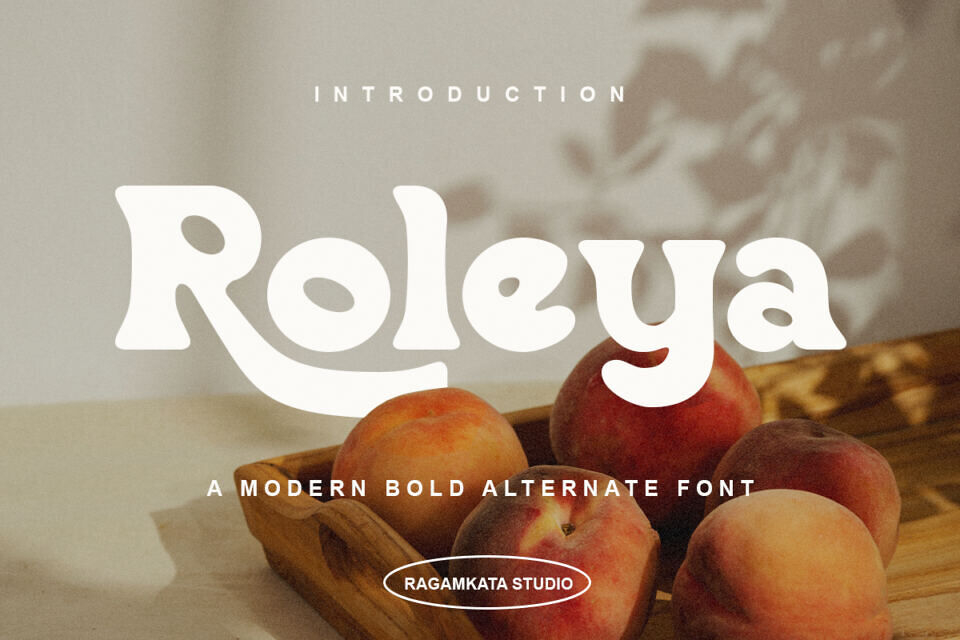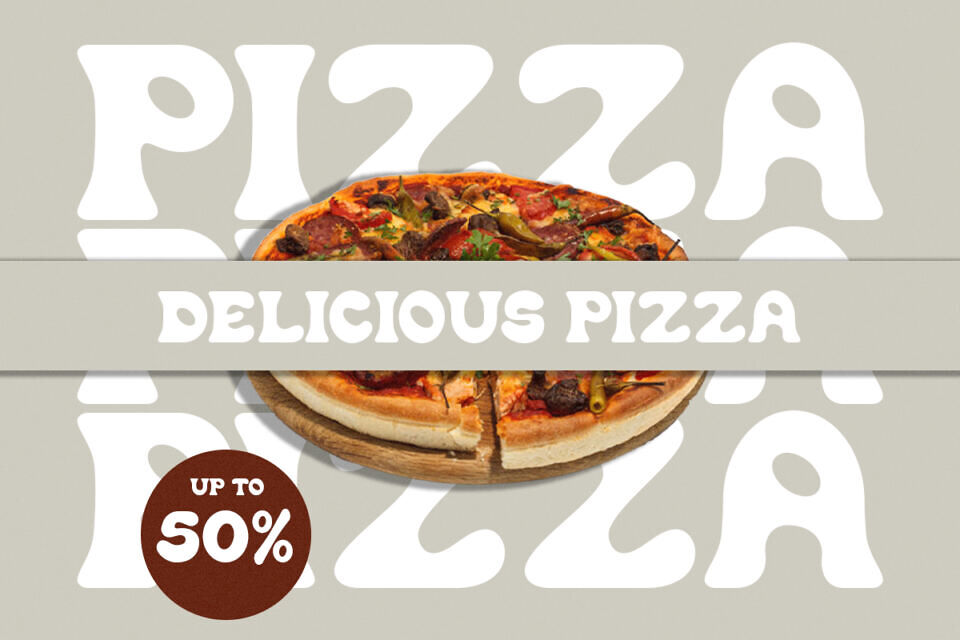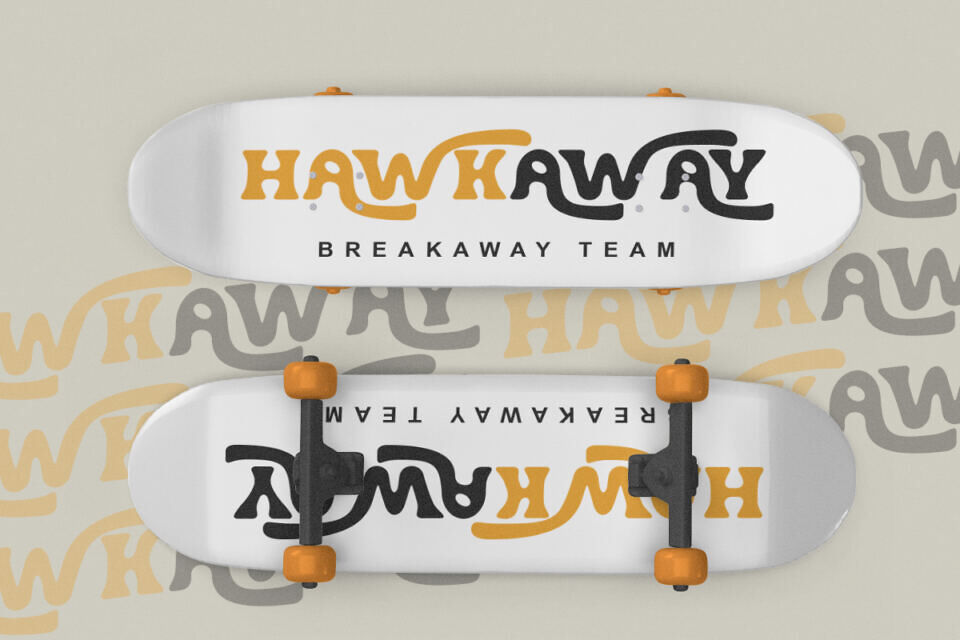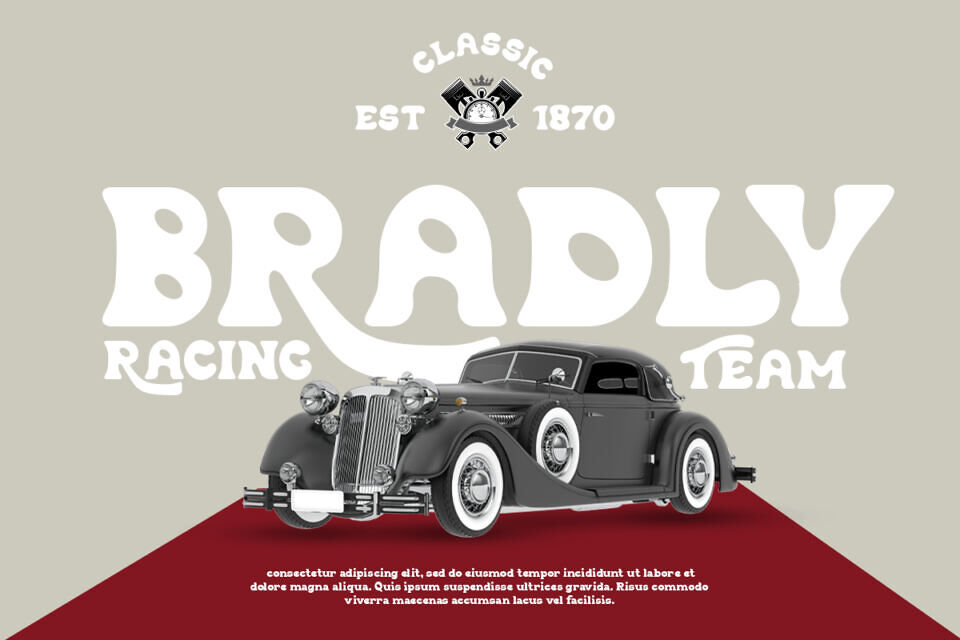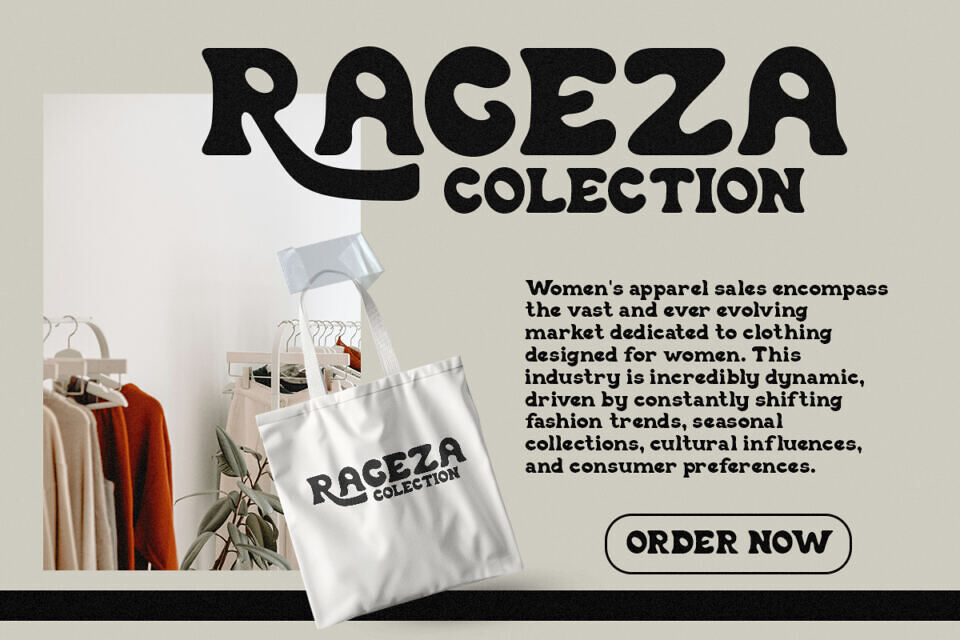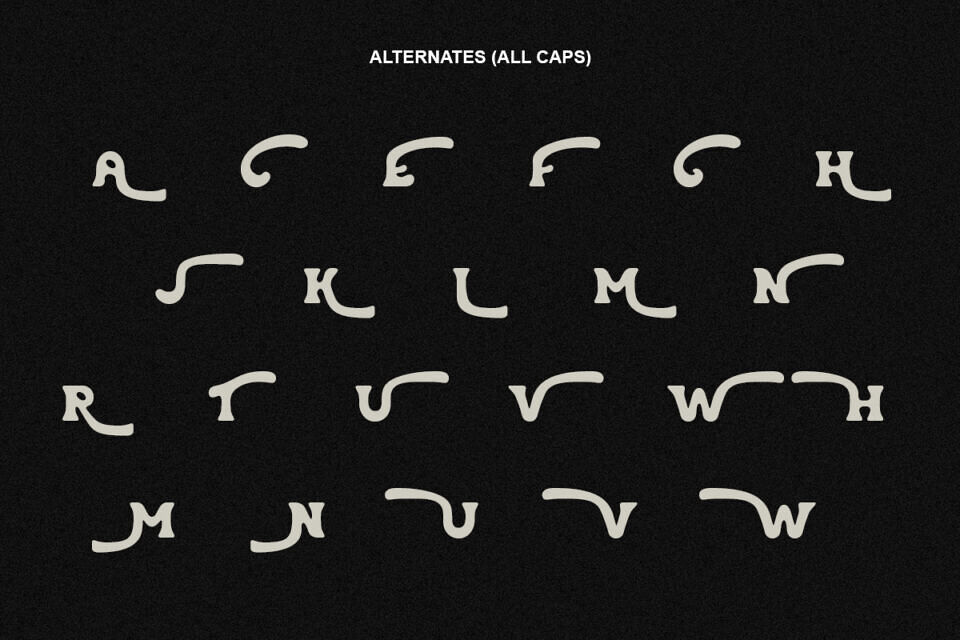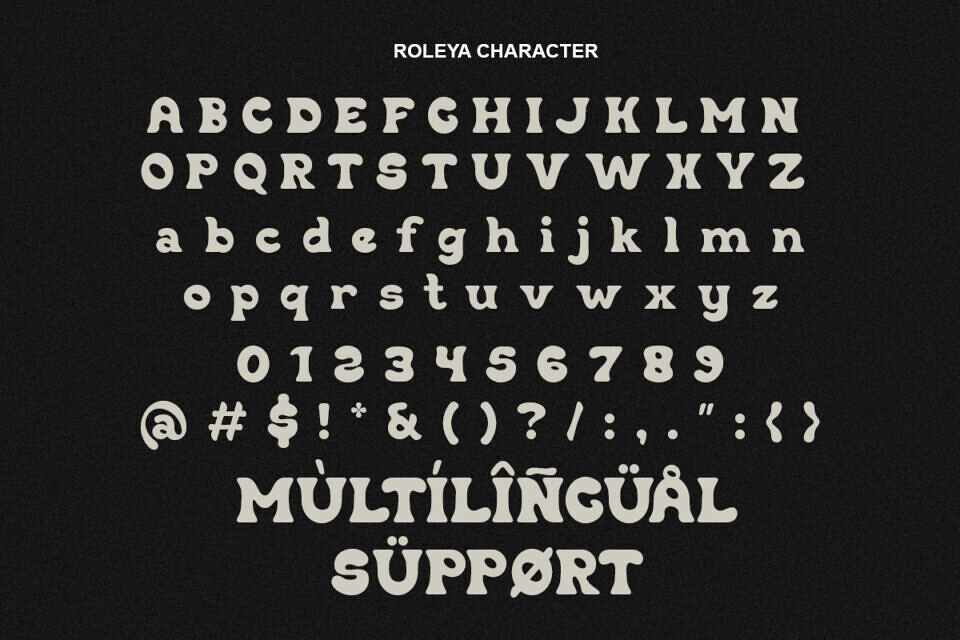
Roleya Font is a bold serif typeface that blends retro charm with modern style. Its smooth curves and striking presence bring vibrant energy and a youthful touch to any project. Perfect for branding, invitations, posters, and digital art, Roleya captures attention with its groovy character and distinctive flair.
Designed to leave a lasting impression, this versatile font adapts seamlessly across creative applications, making it a powerful choice for designers who want to create bold, stylish, and memorable typography with a unique retro-modern appeal.